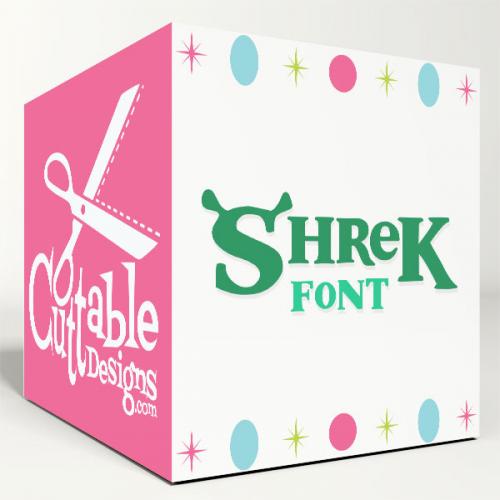
Set a playful, storybook tone with this Shrek Cuttable Font. The set gives you a full display alphabet with quirky, uneven letterforms in the fairy-tale poster style — uppercase A–Z, matching lowercase and numbers 0–9, all as clean vector cut files.
Perfect for Cricut, Silhouette, and other compatible cutting machines, this cuttable font is made for birthday party decor, kids’ shirts, name signs, movie-night props and paper crafts.
Perfect For
- Birthday party banners and decor
- Kids’ shirts and costumes
- Name signs and bedroom wall art
- Movie-night props and invitations
- Cake toppers and cupcake picks
- Tumblers and party cups
- Scrapbooking and card making
- Classroom displays and door signs
Why You’ll Love This Design
- Complete alphabet plus numbers, so any name or age works
- Chunky letterforms weed easily even at small sizes
- Distinct storybook character without looking hand-drawn
- Cuts cleanly in vinyl, HTV, cardstock and felt
- Numbers included, which most display fonts leave out
- One file covers invitations through to decor
Creative Ideas
Cut a child’s name and age for a birthday banner, use the same letters small on party cups, and press a single initial on a matching tee.